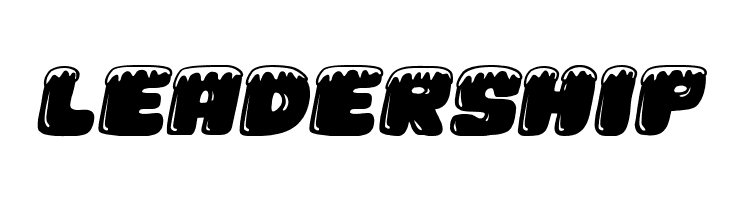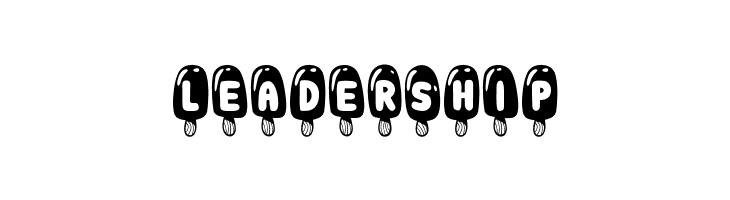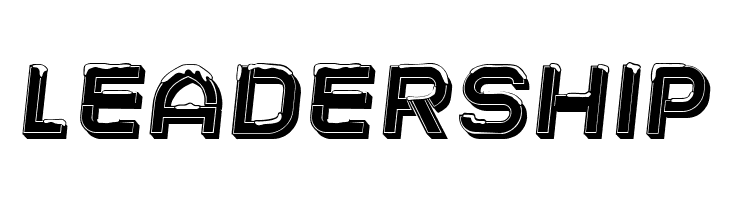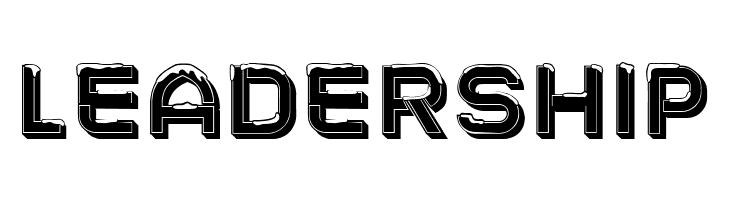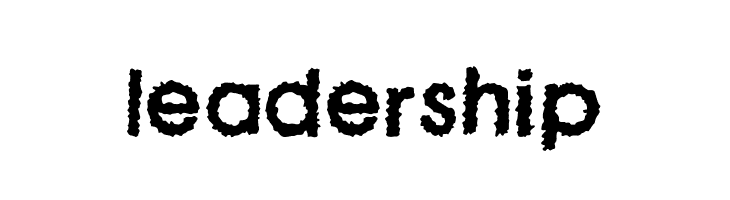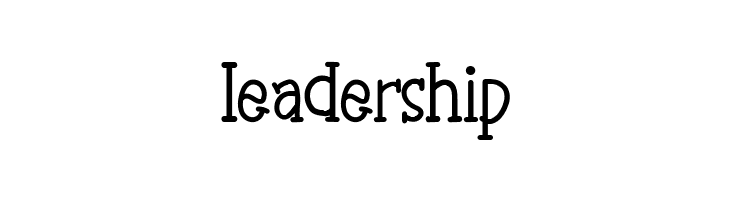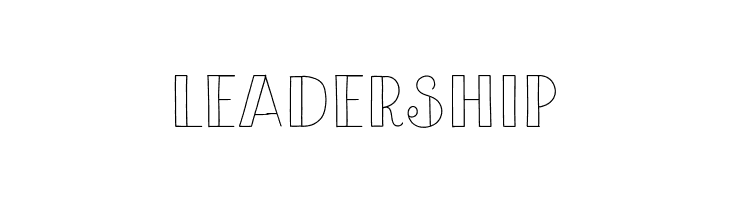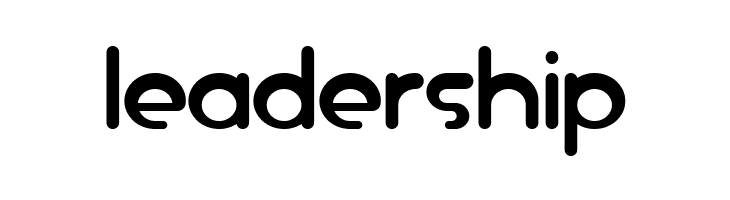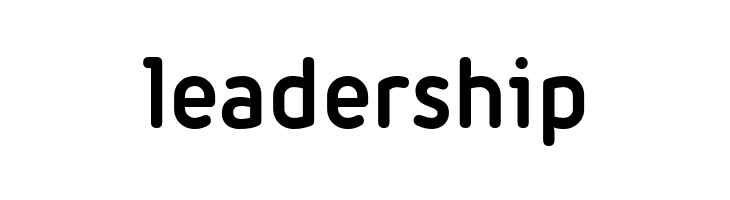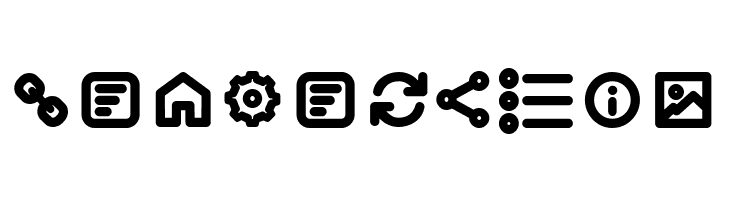
( Fonts by Greg Medina - www.dcoxy.com - Personal-use only. For commercial use please contact owner. ) A whimsical, decorative font with intricate swirls and loops. Download 82 Downloads@WebFont
( Fonts by www.dcoxy.com ) A whimsical and decorative font with intricate swirls and loops. Download 80 Downloads@WebFont
( Fonts by Rangkai Aksara - Personal-use only. For commercial use please contact owner. ) A playful, hand-drawn style font with rounded, whimsical characters. Download 34 Downloads@WebFont
( Fonts by Vanillia - Personal-use only. For commercial use please contact owner. ) A modern, playful font with rounded edges and a bold, smooth appearance. Download 55 Downloads@WebFont
( Fonts by Style-7 - www.styleseven.com - Personal-use only. For commercial use please contact owner. ) A pixelated, retro-style font with bold outlines and a classic 8-bit aesthetic. Download 730 Downloads@WebFont
( Fonts by Shaped Fonts - Philip Trautmann - Personal-use only. For commercial use please contact owner. ) A bold, artistic font with a distressed texture and modern vintage charm. Download 41 Downloads@WebFont
( Fonts by Vladimir Nikolic - https://www.creativefabrica.com/product/educated-deers/ref/144265/ - Personal-use only. For commercial use please contact owner. ) A bold, icy-themed font with rounded characters and a playful style. Download 68 Downloads@WebFont
( Fonts by Vladimir Nikolic - Personal-use only. For commercial use please contact owner. ) A playful, icy font with bold, rounded letters and a frosty theme. Download 29 Downloads@WebFont
( Fonts by Daniel Zadorozny - www.iconian.com - Free for personal use ) A bold, condensed font with a 3D shadow effect, perfect for impactful designs. Download 191 Downloads@WebFont
( Fonts by Daniel Zadorozny - www.iconian.com - Free for personal use ) A bold, condensed, italic font with a decorative outline and modern appeal. Download 126 Downloads@WebFont
( Fonts by Daniel Zadorozny - www.iconian.com - Free for personal use ) A bold, italic font with strong outlines and a dynamic, modern style. Download 198 Downloads@WebFont
( Fonts by Daniel Zadorozny - www.iconian.com - Free for personal use ) A bold, decorative font with a vintage, three-dimensional style. Download 184 Downloads@WebFont
( Fonts by Daniel Zadorozny - www.iconian.com - Free for personal use ) A bold, staggered italic font with a three-dimensional effect. Download 113 Downloads@WebFont
( Fonts by Daniel Zadorozny - www.iconian.com - Free for personal use ) A bold, decorative font with a staggered, shadowed effect for a 3D appearance. Download 139 Downloads@WebFont
( Fonts by Vladimir Nikolic - www.creativefabrica.com/designer/vladimirnikolic/ - Personal-use only. For commercial use please contact owner. ) A bold, italicized font with a 3D effect and thick outlines. Download 80 Downloads@WebFont
( Fonts by Vladimir Nikolic - www.creativefabrica.com/designer/vladimirnikolic/ - Personal-use only. For commercial use please contact owner. ) A bold, geometric font with a three-dimensional effect and strong visual impact. Download 82 Downloads@WebFont
( Rocco Pisani - roccopisani.com ) A playful, handwritten font with smooth, flowing lines and a casual style. Download 77 Downloads@WebFont
( Vladimir Nikolic - www.coroflot.com/vladimirnikolic ) A playful, bold font with rounded, bubble-like characters and a glossy 3D appearance. Download 68 Downloads@WebFont
( Vladimir Nikolic - www.coroflot.com/vladimirnikolic ) A playful, bubble-like font with bold outlines and a whimsical style. Download 58 Downloads@WebFont
( Fonts by Vladimir Nikolic ) A playful, ice cream-themed decorative font with bold, rounded characters. Download 93 Downloads@WebFont
( Fonts by Des Gomez ) A playful, handwritten font with tall, narrow letters and a whimsical style. Download 351 Downloads@WebFont
( Fonts by Mans Greback - www.mansgreback.com - Personal-use only. For commercial use please contact owner. ) A bold, gothic blackletter font with intricate, angular designs. Download 45 Downloads@WebFont
( Fonts by a Des Gomez. Personal-use only. For commercial use please contact owner. ) A playful, handwritten font with a casual and friendly style. Download 189 Downloads@WebFont
( Fonts by Em Nazar - Personal-use only. For commercial use please contact owner. ) A playful, textured font with an organic, brush-stroke appearance. Download 49 Downloads@WebFont
( Fonts by www.typodermicfonts.com - Ray Larabie ) A bold, angular font with a geometric and striking design. Download 171 Downloads@WebFont
( Fonts by Zetafonts - Personal-use only. For commercial use please contact owner. ) Bold, geometric pictograms with rounded corners and high legibility. Download 46 Downloads@WebFont
( Fonts by Zetafonts - Personal-use only. For commercial use please contact owner. ) A bold, rounded sans-serif font with smooth curves and uniform strokes. Download 326 Downloads@WebFont
( Fonts by deFharo - Fernando Haro - Personal-use only. For commercial use please contact owner. ) A modern icon font featuring a variety of symbols and ligatures within square backgrounds. Download 27 Downloads@WebFont
( Conrad Garner - www.conradgarner.com ) A bold, geometric font with a modern and impactful style. Download 917 Downloads@WebFont
( Guiltype Studio - MIZAN - graphicriver.net/item/good-morning-purple/22116135 ) A graceful and flowing script font with elegant, interconnected characters. Download 948 Downloads@WebFont